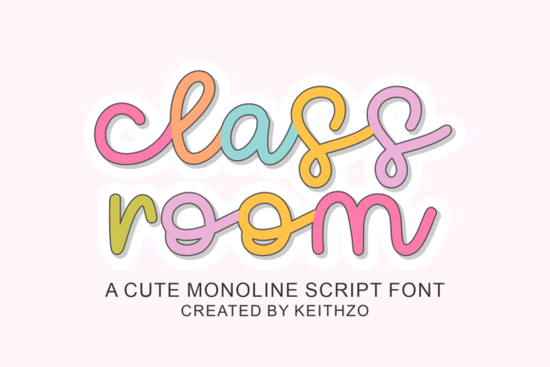
If you need a script font that looks hand-lettered but still reads clearly at small sizes, the Classroom Font is a strong option. It's a monoline script, meaning the stroke width stays consistent from start to finish. That evenness keeps every letter legible whether you're designing a t-shirt graphic or a tiny product label. It blends a playful, youthful tone with enough structure to look polished in professional settings.
What Makes This Font Readable at Small Sizes?
The key is its monoline construction. Unlike traditional calligraphy fonts that vary between thick downstrokes and thin upstrokes, Authentic Calligraphy Font being one example, Classroom keeps every stroke the same weight. This uniformity prevents letters from blurring together when scaled down, which is a common problem with decorative scripts.
The letterforms also have a natural, rhythmic flow. They connect smoothly without feeling rushed or overly ornate. You get the warmth of handwriting without the unpredictability that sometimes makes script fonts hard to use in structured layouts.
What Projects Work Best With a Monoline Script?
Classroom's balanced style fits a wide range of creative work. Here are some common uses:
- Educator materials worksheets, bulletin board headers, name tags, and classroom posters
- Children's and infant branding logos, packaging, nursery wall art, and baby shower invitations
- Clothing and apparel t-shirt designs, hoodies, tote bags, and baby onesies
- Print-on-demand products mugs, stickers, notebooks, and phone cases
- Social media content Instagram quotes, Pinterest graphics, and story overlays
- Boutique packaging gift tags, wrapping paper, labels, and shopping bags
For print-on-demand sellers, consistency across sizes matters a lot. A design that looks great on a mockup but falls apart on the actual product is frustrating. Classroom avoids that problem because its strokes don't thin out or disappear at smaller scales.
How Does It Compare to Other Script Fonts?
It depends on the tone you're going for. Beauty Font has a more refined, editorial feel better suited for wedding stationery or beauty branding. If you want something looser and more spontaneous, Free Flow Handwriting Font gives you that casual, freehand energy. You can explore more options across different script font styles to see what matches your project best.
Classroom sits in a practical middle ground. It's friendly and approachable without being sloppy. It feels hand-drawn but doesn't sacrifice structure. That combination makes it a reliable everyday script rather than a specialty font you'd only use once.
Is It Easy to Pair With Other Fonts?
Yes, and that's one of its underrated strengths. Monoline scripts tend to play nicely with clean sans-serifs and simple serifs because they don't compete for attention. A basic pairing like Classroom for headings and a neutral sans-serif for body text works well for:
- Educational posters and classroom displays
- Small business websites targeting families
- Product packaging with multiple text layers
- Social media templates with mixed typography
If you like exploring different handwriting aesthetics, comparing it with something like a signature-style script can help you decide which tone fits your brand. Signature Handwriting Font leans more personal and sophisticated, while Classroom stays light and educational.
Who Benefits Most From This Font?
Classroom is a practical choice if you regularly work on projects that need to feel approachable and clear. Specifically:
- Teachers and homeschool parents designing their own printable resources
- Print-on-demand sellers who need one script font that works across product types
- Small business owners in the children's, education, or family niche
- Crafters using cutting machines for vinyl projects and paper crafts
- Social media creators who want readable, friendly typography in posts
It's not a flashy font that demands attention it's a dependable workhorse that quietly does its job across different contexts. For a deeper look at how it fits into your workflow, you can check out the full Classroom font details and see examples in action. Monoline scripts like this one are well-documented in typography resources as one of the most readable categories for mixed-use design.
- ✅ Explore the included alternates and swashes for added variety